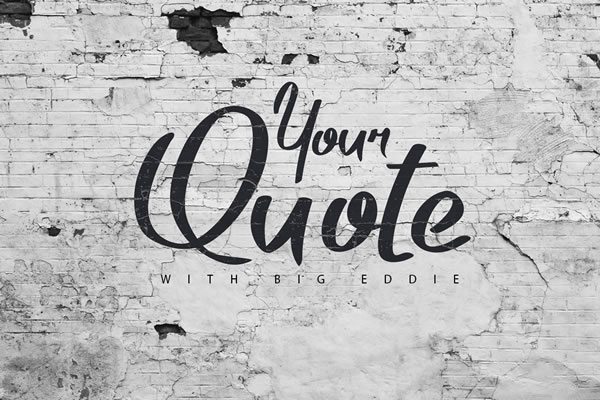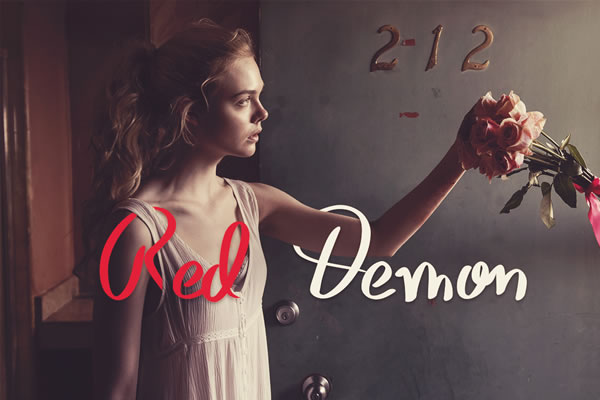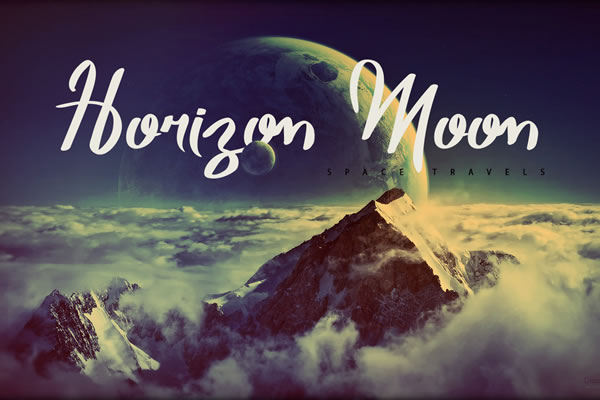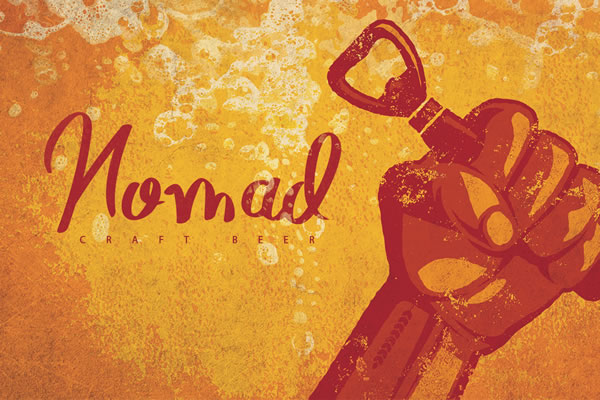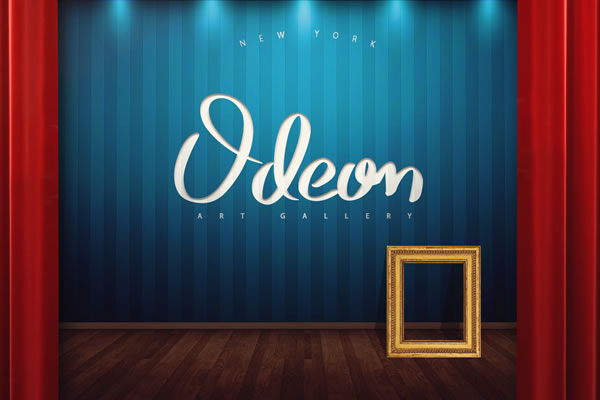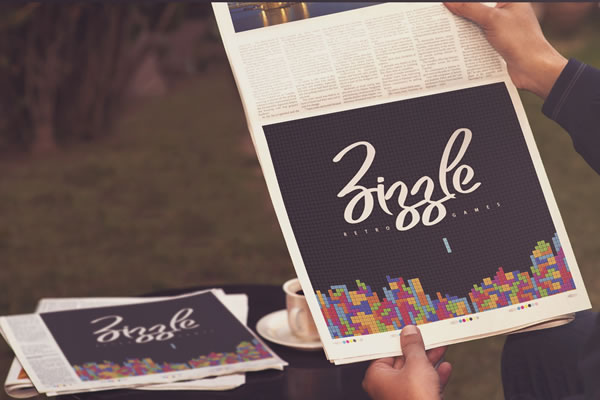
The Big Eddie Font: A Playful Twist for Your Designs
I still remember the time I was working on a fun project for a children’s birthday party invitation. I had all the graphics and colors sorted out, but I just couldn’t find the right font to match the playful vibe I was going for. That’s when I stumbled upon Big Eddie, a playful font created by Pere Esquerrà. It was love at first sight! 🎉
An Honest Review of Big Eddie
What I Love About Big Eddie
• ✨ Unique and quirky design that’s perfect for creative projects
• 🎉 Supports multiple languages, making it a great choice for global projects
• 🔥 OpenType features, including glyphs and stylistic alternates, add an extra layer of creativity
While Big Eddie is an amazing font, there are a few things to keep in mind:
• 🤔 Some characters may not work well in all contexts, such as in very small text or at unusual angles
• ⚠️ Limited availability of condensed or italic versions, which might limit its use in certain designs
The Story Behind Big Eddie
Pere Esquerrà, the designer behind Big Eddie, was inspired by his love of playful typography and hand-drawn lettering. He wanted to create a font that would bring a smile to people’s faces and add a touch of whimsy to their designs.
Q: What type of projects is Big Eddie best suited for?
A: Big Eddie is perfect for creative projects, such as kids’ party invitations, posters, flyers, and social media graphics.
Q: Is Big Eddie a difficult font to read?
A: No, Big Eddie is highly legible, even at smaller font sizes. However, as with any font, it’s always a good idea to test it in your specific design context.